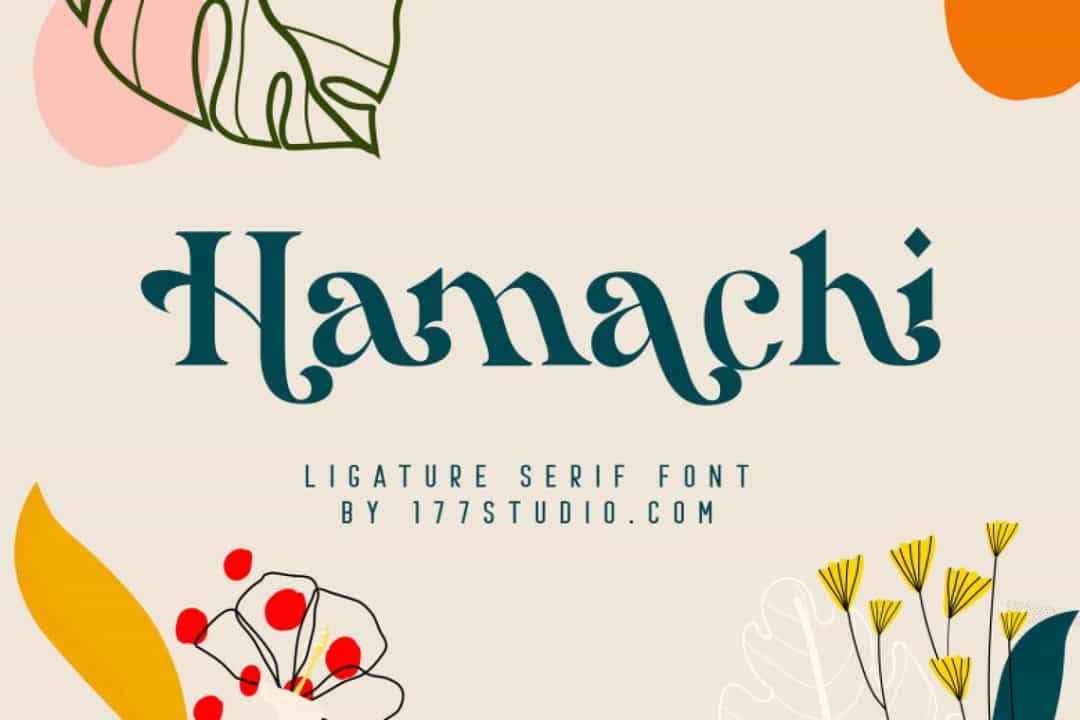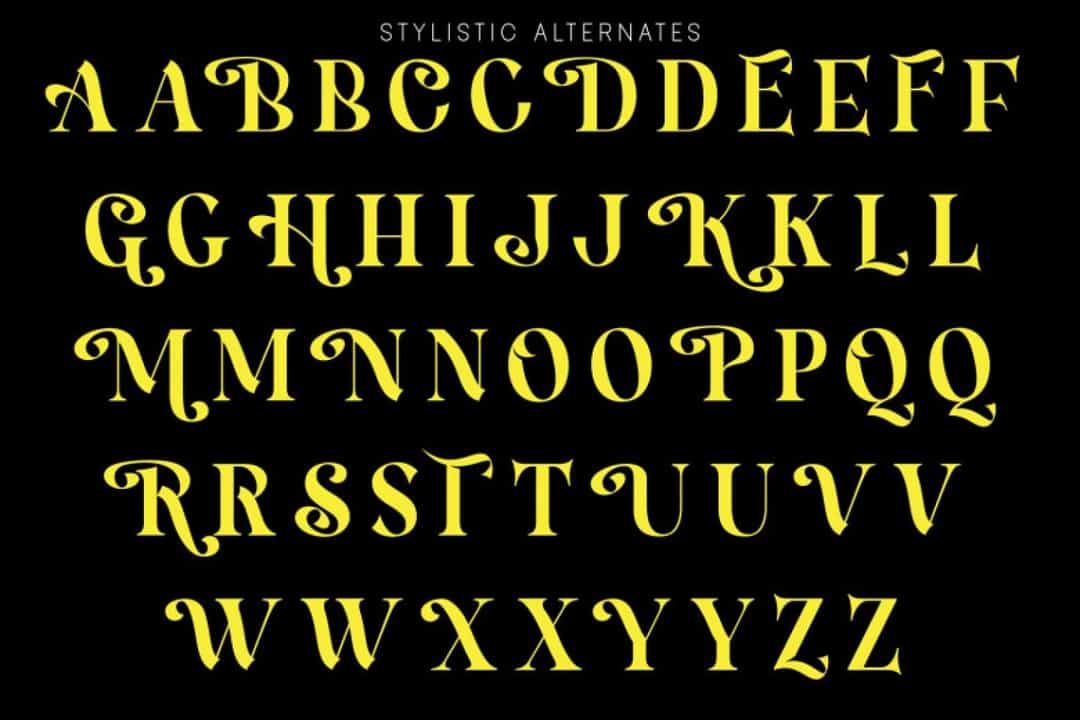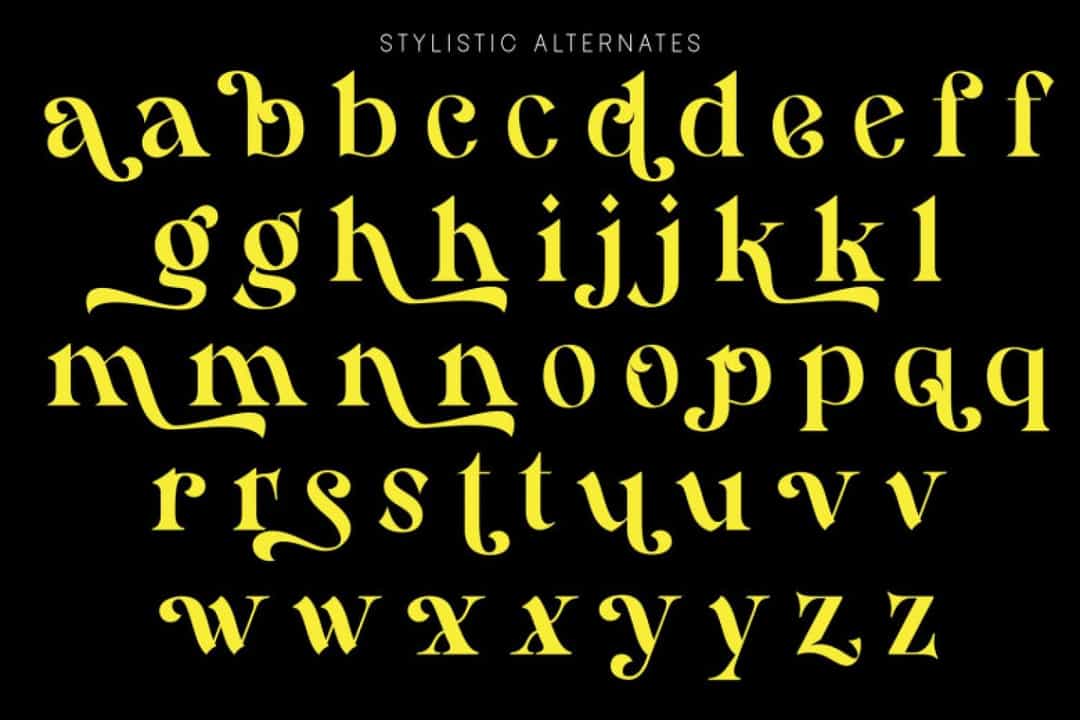
Hamachi – Ligatures Modern Serif is an exquisite font which uses the ligatures technique to seamlessly join letters. While basic, this font stands out due to its distinct style; which combines simplicity, beauty and elegance for maximum impact in your work – such as invitations, logos, headlines or any other application you can think of!